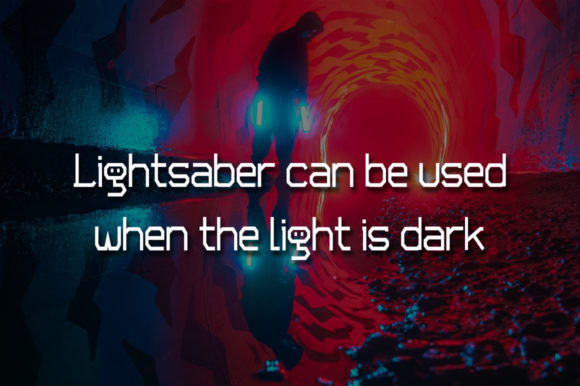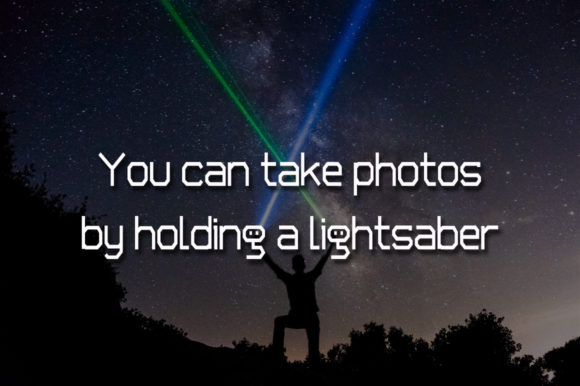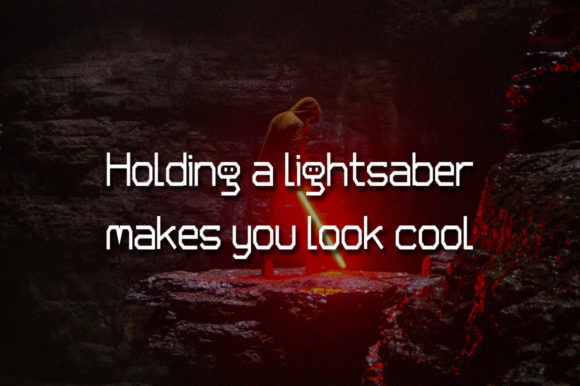
Introduction to Lightsaber Font
Lightsaber is a techno looking display font.
This font is ideal for writing web designs, business cards, or pretty much anything else that requires a unique touch .
Key Features of Lightsaber Font
Why Choose Lightsaber Font?
Lightsaber Font offers exceptional quality and versatility, making it a valuable addition to your design toolkit. Whether you’re creating for personal projects or commercial use, Lightsaber Font delivers professional results.